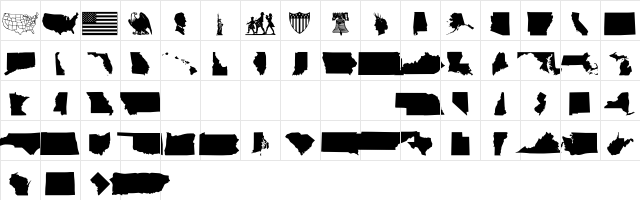
US-Bats Normal Free Font
US-Bats Normal
Design Context for US-Bats
US-Bats is a composed and adaptable typeface that performs quietly and consistently across a wide range of design contexts.